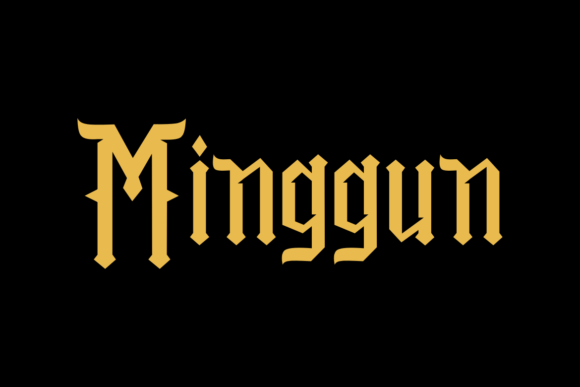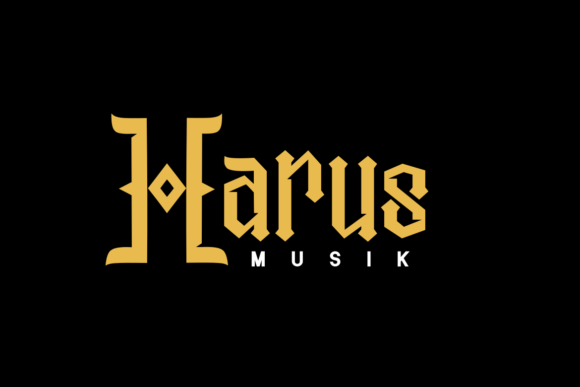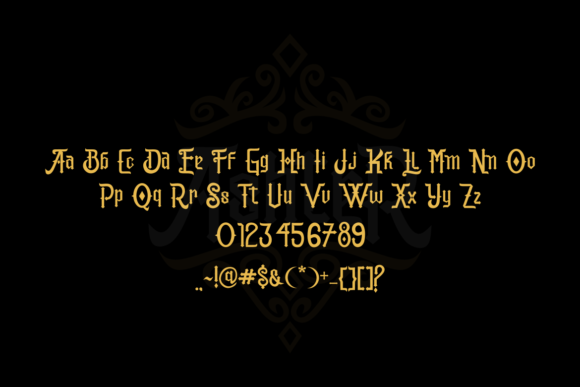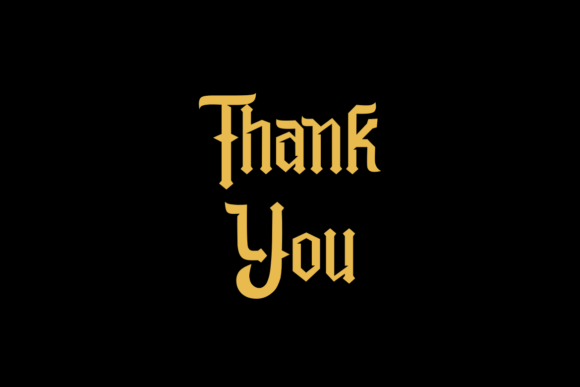
AshteR Font: Elevate Your Creativity with this Distinct Blackletter Font
AshteR Font is an incredibly distinct blackletter font that has been masterfully designed to become a true favorite among designers and crafters. With its unique and striking appearance, this font has the potential to bring each of your creative ideas to the highest level. In this article, we will delve into the features and benefits of AshteR Font, and explore how it can be used to take your designs to new heights.
What is AshteR Font?
AshteR Font is a blackletter font that is characterized by its dramatic and ornate letterforms. Blackletter fonts are known for their distinctive appearance, which is inspired by traditional calligraphy and medieval manuscripts. AshteR Font takes this classic style and adds a modern twist, making it perfect for designers and crafters who want to add a touch of elegance and sophistication to their work.
Key Features of AshteR Font
AshteR Font boasts a range of impressive features that make it a standout choice for designers and crafters. Some of its key features include:
- Unique and distinctive letterforms: AshteR Font features intricate and ornate letterforms that are sure to grab attention.
- High-quality design: The font has been masterfully designed to ensure that it looks great in any context.
- Versatile: AshteR Font can be used for a wide range of design projects, from logos and branding to invitations and packaging.
- Easily readable: Despite its ornate appearance, AshteR Font is surprisingly easy to read, making it perfect for body text as well as headlines.
Benefits of Using AshteR Font
So why should you choose AshteR Font for your next design project? Here are just a few benefits of using this incredible font:
- Adds elegance and sophistication: AshteR Font is perfect for designers and crafters who want to add a touch of luxury and refinement to their work.
- Stand out from the crowd: With its unique and distinctive letterforms, AshteR Font is sure to help your designs stand out from the crowd.
- Perfect for creative projects: AshteR Font is ideal for creative projects such as invitations, packaging, and branding, where you want to make a bold statement.
How to Use AshteR Font
Using AshteR Font is easy. Here are a few tips to get you started:
- Pair it with a sans-serif font: AshteR Font looks great when paired with a sans-serif font, such as Arial or Helvetica.
- Use it for headlines and titles: AshteR Font is perfect for headlines and titles, where you want to make a bold statement.
- Experiment with different colors: AshteR Font looks great in a range of colors, from bold and bright to subtle and muted.
AshteR Font is an incredibly distinct blackletter font that is sure to elevate your creativity and take your designs to new heights. With its unique and striking appearance, high-quality design, and versatility, this font is perfect for designers and crafters who want to add a touch of elegance and sophistication to their work. Whether you’re working on a logo, invitation, or packaging project, AshteR Font is sure to be a hit. So why wait? Download AshteR Font today and start creating!